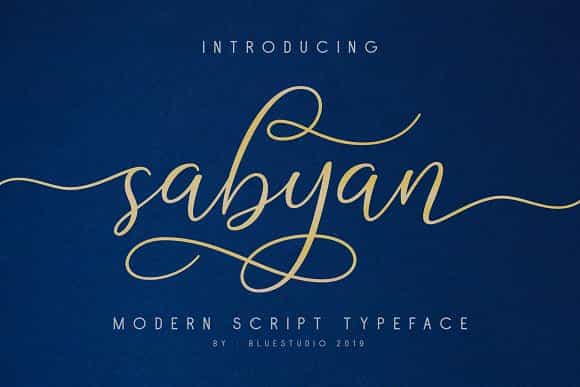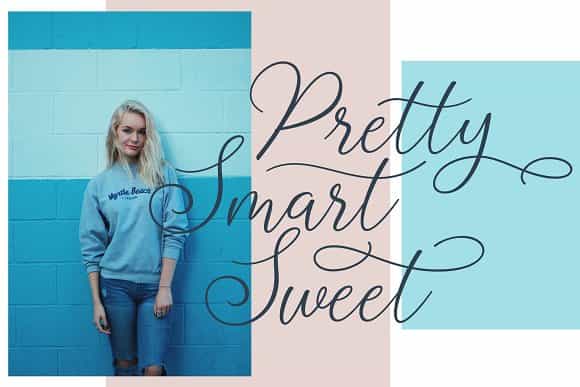
The new product of ours is called Sabyan. Sabyan is a contemporary and neat handwriting script font. Sabyan is suitable for all your design project needs such as: logo design, branding, covers, posters, magazines, wedding invitations, greeting cards, quotes and many more.